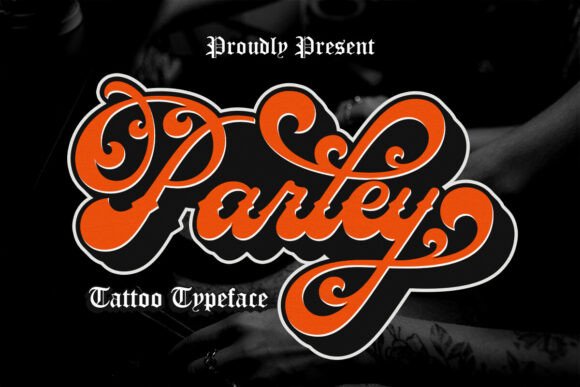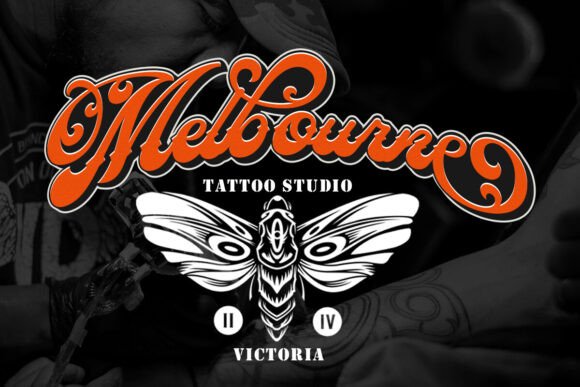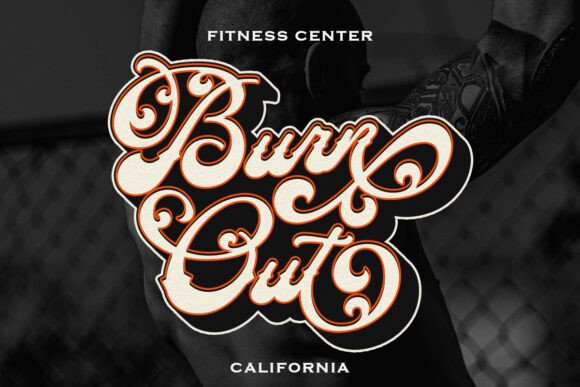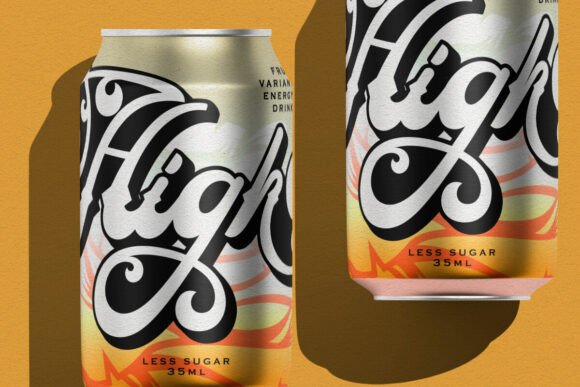
Parley Font
About the Parley Font
The wait is over! The incredible Parley Font is now available for your design toolkit. Introducing our new product called Parley Tattoo font. Parley Tattoo includes upper and lower case letters, numbers, various punctuation marks and ligatures. All lowercase letters include ending swashes and alternate fonts.
Parley Tattoo’s bold swashes and alternate characters make it ideal for headlines, short impactful statements, and branding elements where a strong visual presence is desired. It works exceptionally well in posters, logos, and packaging design, adding a touch of vintage flair. However, its decorative nature makes it less suitable for body text or long paragraphs, and its detailed letterforms may present readability issues in small sizes or on screen (e.g., UI).
To complement its energetic personality, pair Parley Tattoo with a clean sans-serif like Montserrat for body text or a more geometric sans-serif like Futura for a modern contrast. Alternatively, a classic serif like Garamond can provide a sophisticated counterpoint, creating a balanced and harmonious effect. Avoid pairing it with other heavily embellished fonts which could create visual clutter.
Parley Tattoo’s overall personality is bold and slightly rebellious, yet maintains a vintage charm. Its playful energy makes it well-suited to brands aiming for a confident, eye-catching, and slightly edgy aesthetic, particularly in sectors like fashion, music, or tattoo artistry.